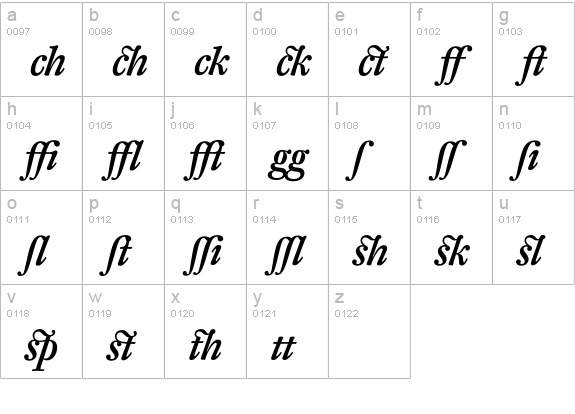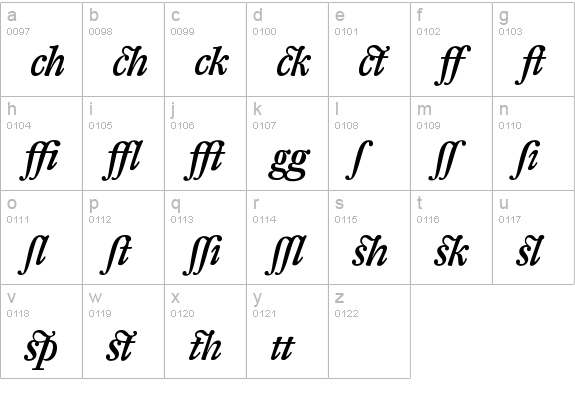
DTL Fleischmann T Medium Italic Alt is a balanced, medium-weight, italic variant in the DTL typeface family \xE2\x80\x94 well suited to sub-headlines, navigation, and balanced editorial work.
The DTL Fleischmann T Medium Italic Alt font exudes elegance and sophistication with its sleek and modern design. This font strikes the perfect balance between traditional and contemporary styles, making it a versatile choice for a wide range of design projects. Its medium weight and italicized form add a touch of flair and creativity to any text or layout. Best of all, this exquisite font is available for free download at FontsMarket.com. Whether you're working on a branding project, editorial design, or any other creative endeavor, the DTL Fleischmann T Medium Italic Alt font is sure to elevate your work and make a lasting impression. Don't miss out on this opportunity to enhance your designs with this high-quality typeface, completely free of charge.